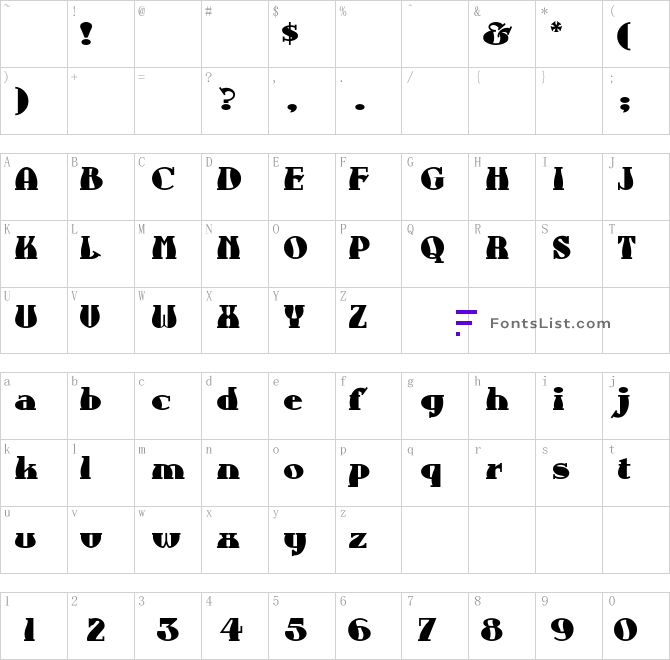
- Font Name:AuntBertha
AuntBertha.ttf is a very beautiful artistic font, AuntBertha.ttf is widely used in the design and printing of various books and pictures,AuntBertha.ttf has a strong visual impact,AuntBertha.ttf is a commonly used font in newspapers, magazines and books, and is used in posters, e-commerce Poster design, store design, logo design, font design and other fields.AuntBertha.